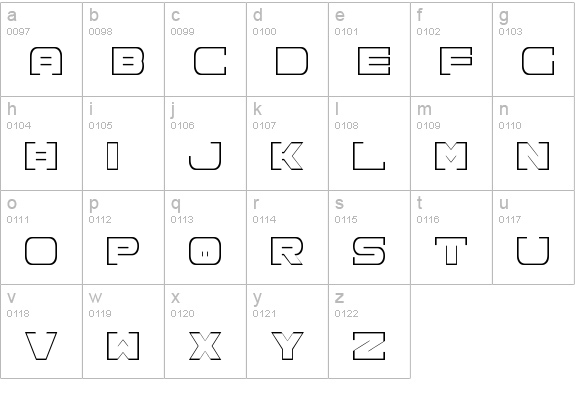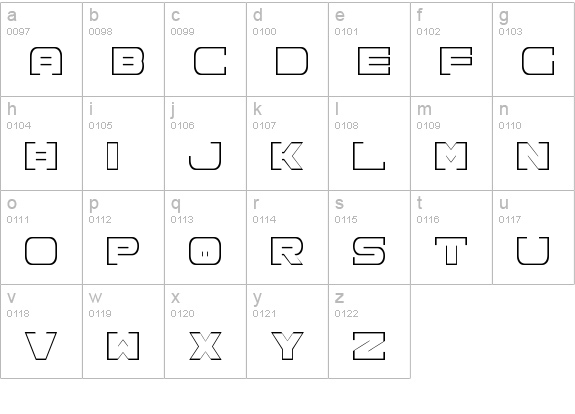
Spac3 neon font is a stunning display typeface that exudes a futuristic and vibrant energy. Its sleek and geometric design captures the essence of modern technology, making it the perfect choice for projects that require a touch of edginess and innovation. The neon-inspired letterforms of Spac3 neon font glow with an electrifying intensity, creating a captivating visual impact that commands attention. This font's versatility shines through in various design applications, from logos and headlines to posters and social media graphics. Its distinct and bold style allows it to stand out effortlessly, adding a unique flair to any project. Whether you're working on a futuristic sci-fi movie poster or a cutting-edge technology website, Spac3 neon font will elevate your design to new heights. One of the best things about Spac3 neon font is that it is available for free download at FontsMarket.com. This means that you can easily access and use this extraordinary font without any cost. Its availability on FontsMarket.com ensures that you can obtain this font with convenience and ease, giving you the freedom to explore its endless possibilities in your creative endeavors. So, if you're looking to infuse your designs with a touch of modernity and brilliance, look no further than Spac3 neon font. With its electrifying aesthetic and the freedom to download it for free at FontsMarket.com, this font is an essential tool for any designer or creative individual seeking to make a statement. Unleash your creativity and let Spac3 neon font illuminate your designs with its captivating glow.